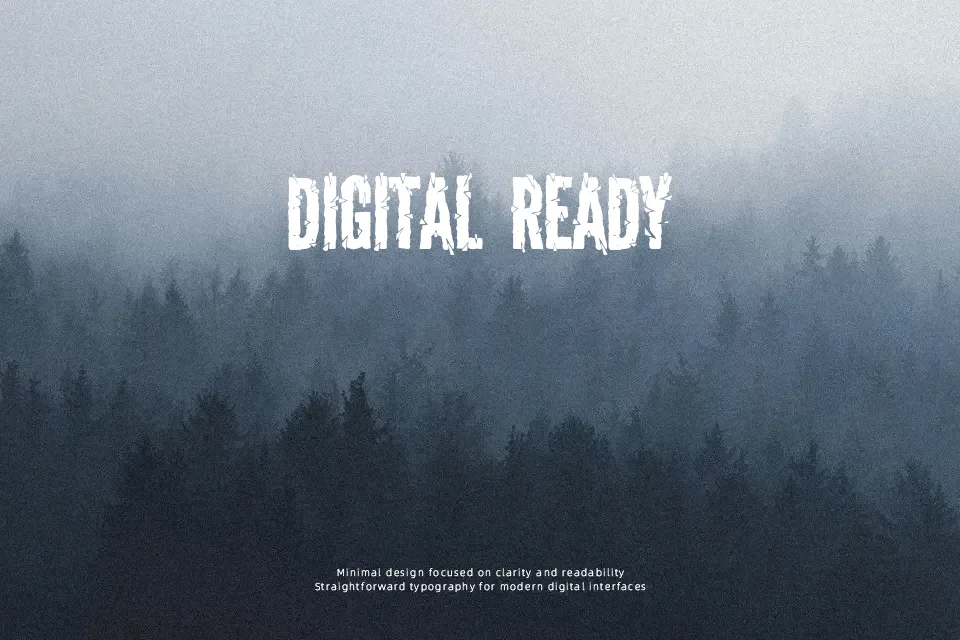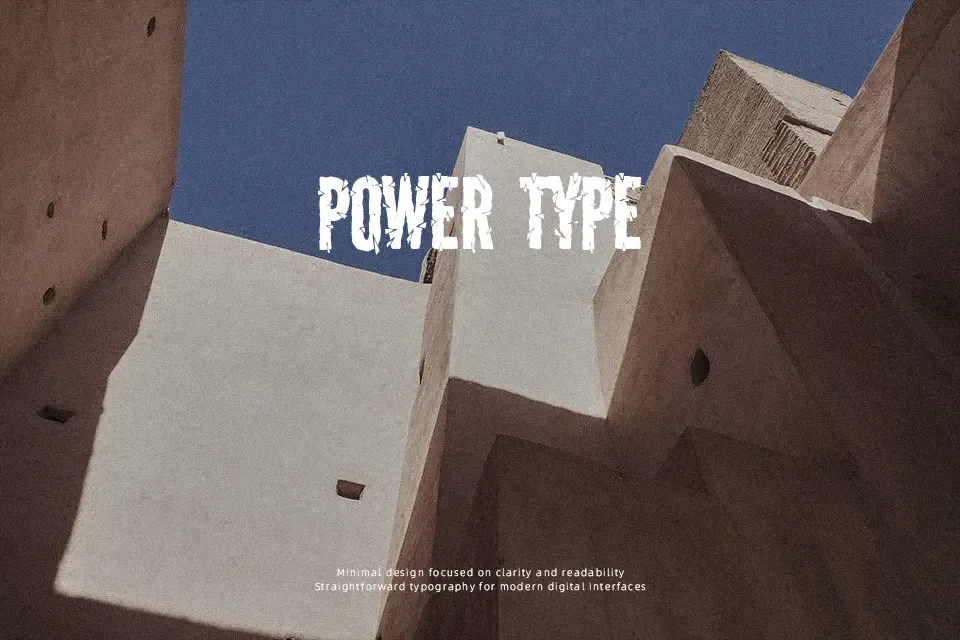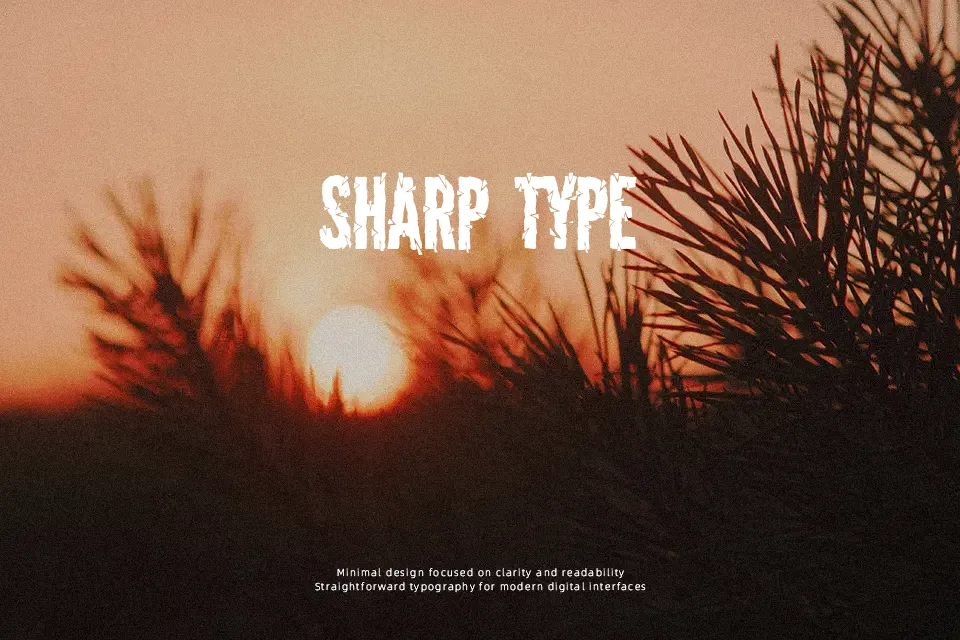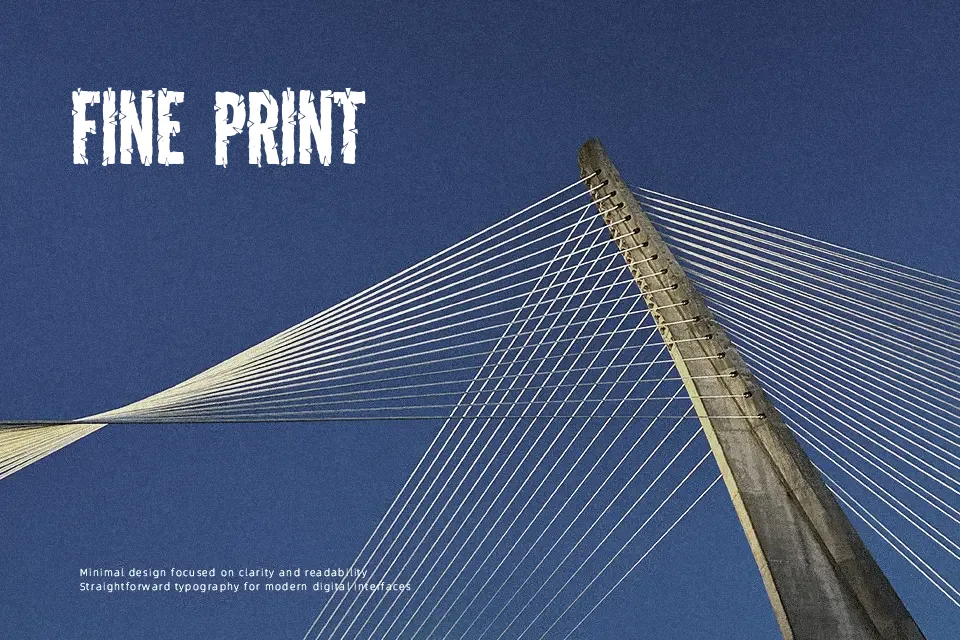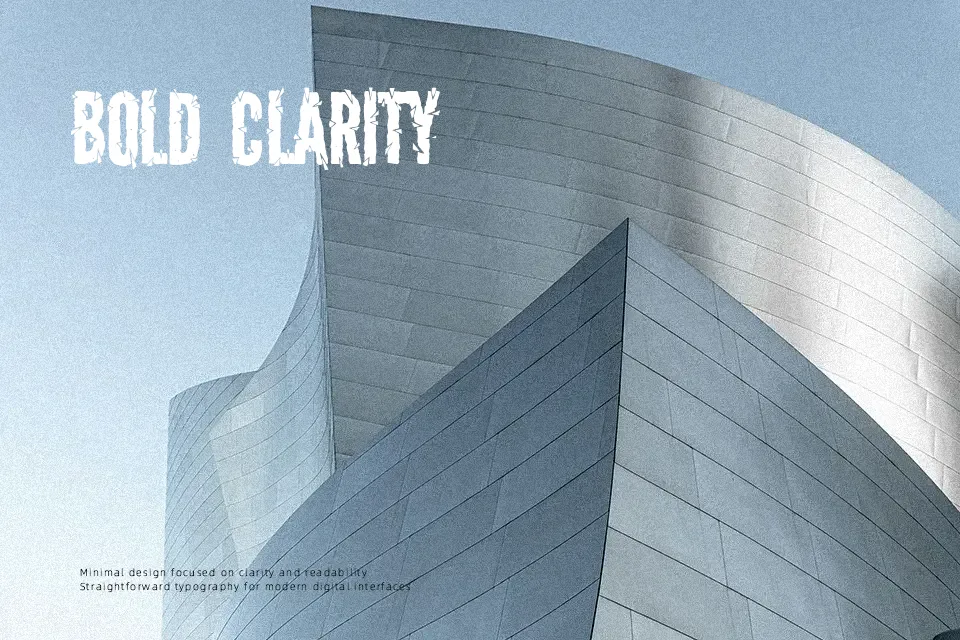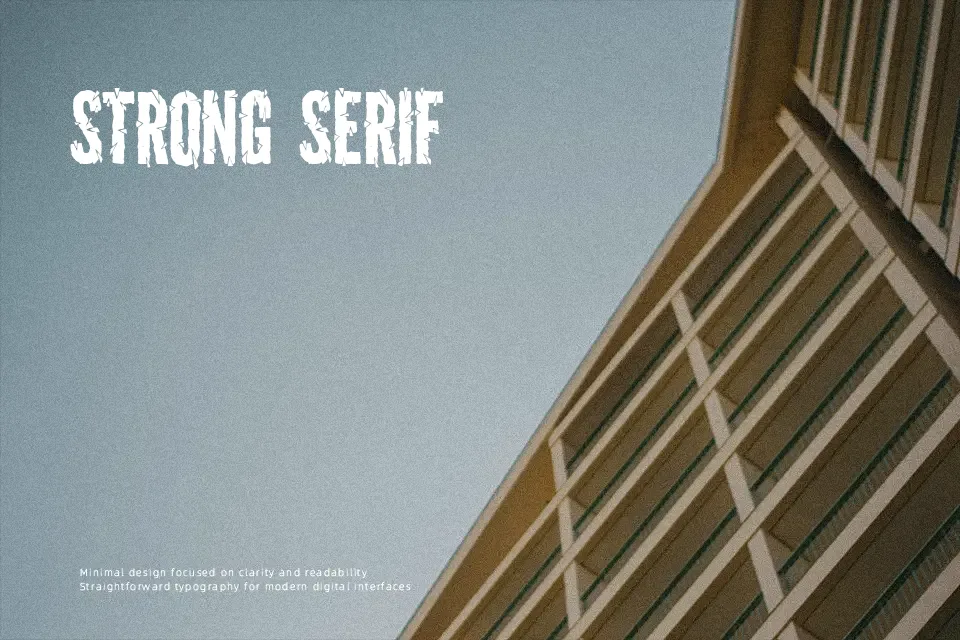
Poster Break Font
Poster Break Font immediately captures attention with its aggressively shattered letterforms and heavy structural foundation. The bold, fractured strokes create a striking visual rhythm that thrives in large-scale applications like music festival posters and extreme sports apparel. Spacing between the distressed elements helps maintain clarity in massive headlines, though the decorative destruction severely compromises legibility at smaller sizes. The proportions remain relatively thick and solid despite the heavy damage, providing a grounded feel to the typography. The dense forms reduce continuous reading comfort, making this typeface strictly suited for high-impact display purposes rather than extended editorial paragraphs.
extreme sports apparel, music festival posters, streetwear branding
dense editorial layouts, small interface labels, corporate reports
Perfect for branding, headline, and poster, with a bold and decorative style.